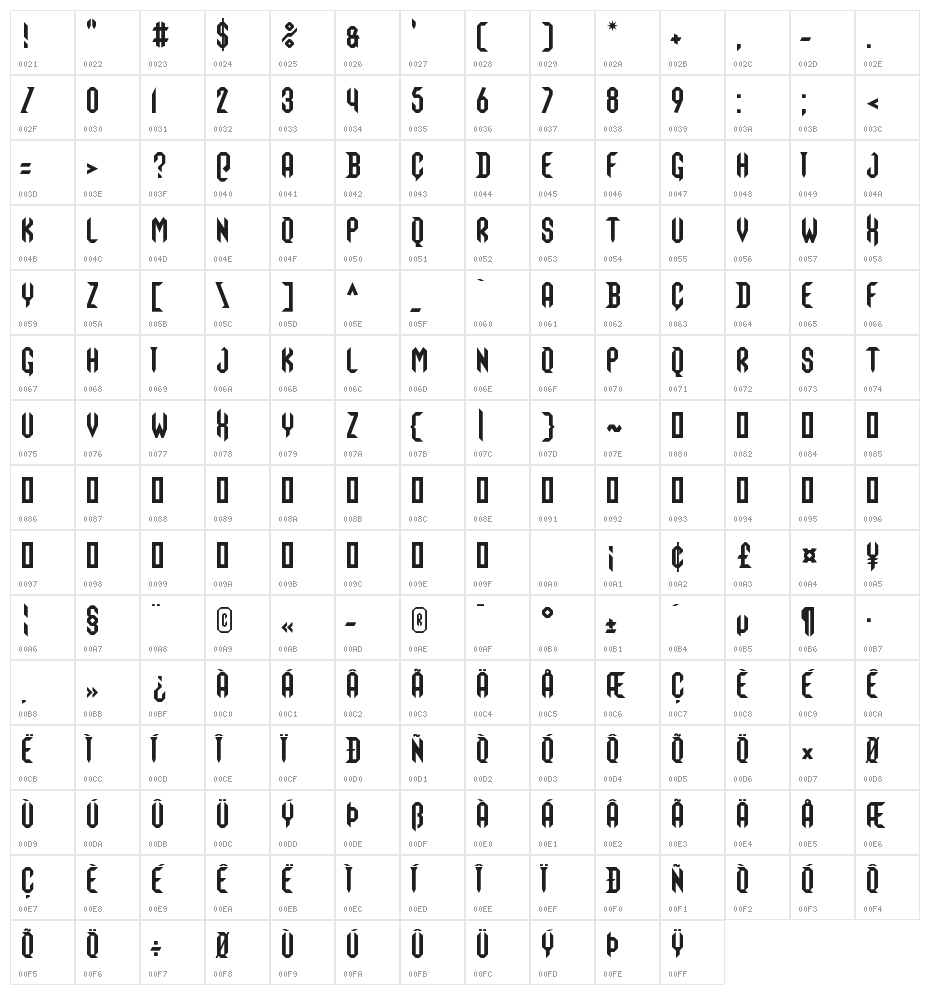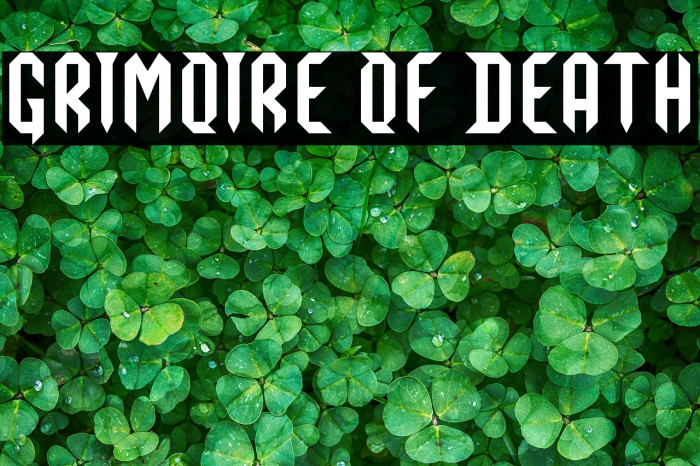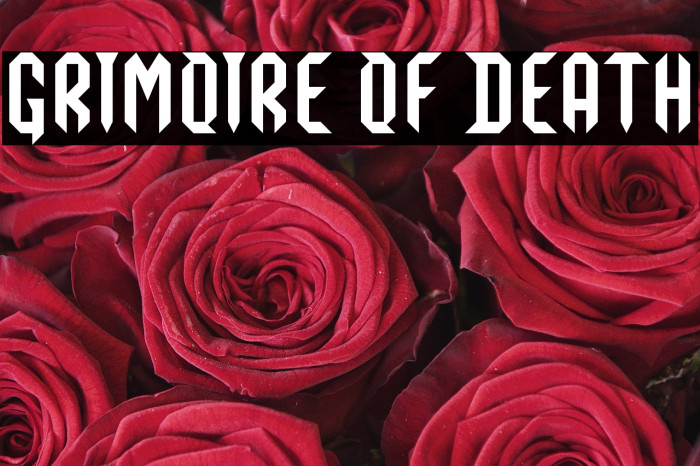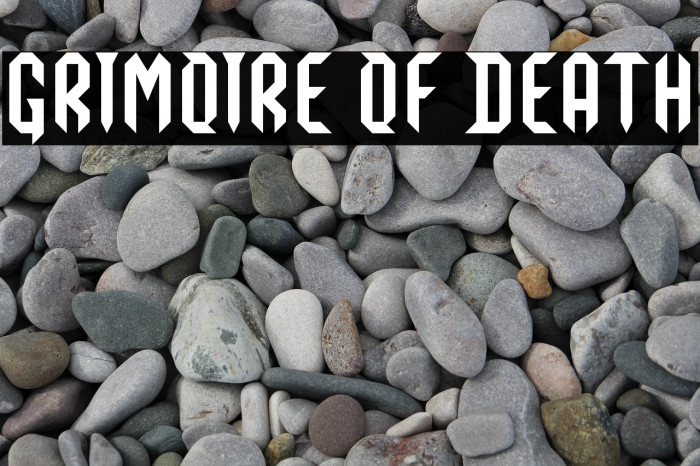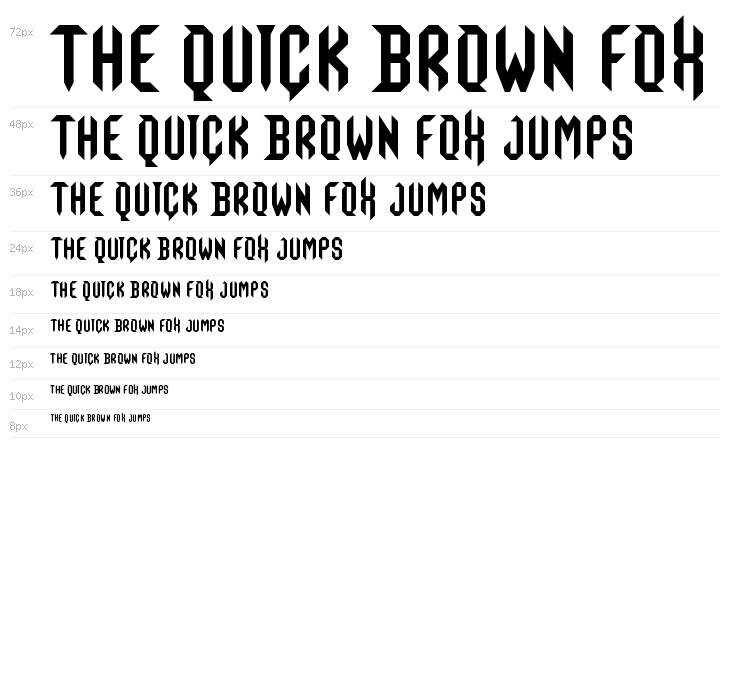
Grimoire Of Death Font
Grimoire Of Death Description
This font features a bold, angular design with sharp edges and a gothic-inspired aesthetic. The uppercase and lowercase letters maintain a consistent geometric style, characterized by pointed serifs and a strong vertical emphasis. Numbers and special characters follow the same design principles, ensuring uniformity across all glyphs. The font's dramatic appearance makes it suitable for projects that require a striking and memorable visual impact.
| Overall Style | Gothic, Modern |
| Proposed Projects | Ideal for horror-themed posters, video game titles, book covers, and branding that requires a dramatic and edgy look. |